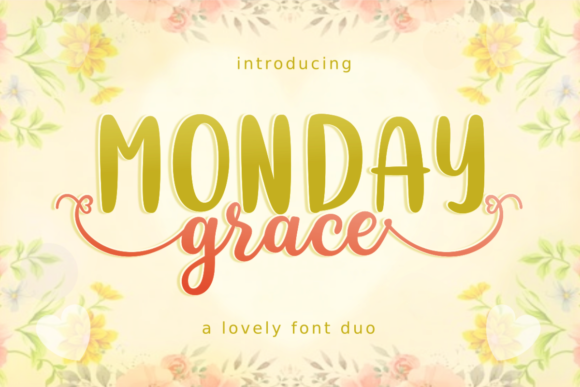
Step into the world of modern calligraphy with Monday Grace Font, a script font family that exudes elegance and charm. Crafted by the skilled hands of Deedeetype, this font captures the essence of handwritten beauty, bringing an organic and natural touch to your designs.
Monday Grace Font is a captivating dance of flowing lines, delicate swashes, and playful ligatures, inviting you to create designs that speak to the heart. Its versatile nature makes it a perfect choice for a wide range of projects, from wedding invitations and logos to social media posts and branding materials.
Immerse yourself in the enchanting world of Monday Grace Font and let your creativity soar. Whether you're a seasoned designer or just starting your journey, this font will elevate your work to new heights of sophistication and charm.
With Monday Grace Font, you'll discover a world of possibilities, unlocking the potential to create designs that captivate and inspire. Its timeless appeal ensures that your creations will stand the test of time, leaving a lasting impression on your audience.
Embrace the allure of Monday Grace Font and transform your designs into works of art. Let your imagination run wild as you explore the endless possibilities that await you with this remarkable font family.